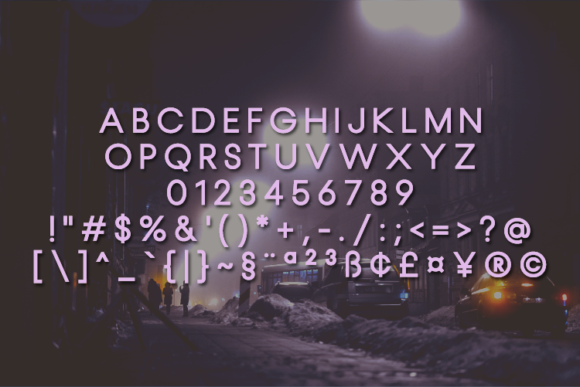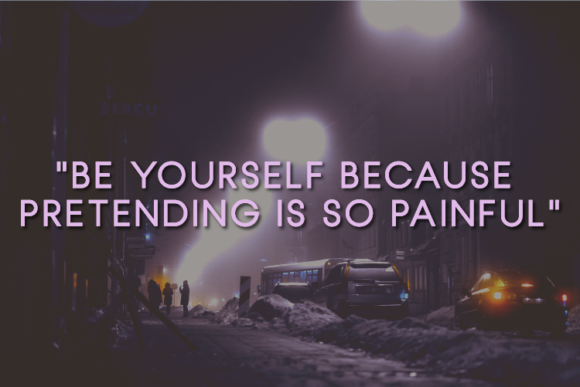
Introduction to Malverone Font
Have you ever stared at a blank page, wondering how to bring your creative project to life? It’s a familiar feeling for designers, but the right font can make all the difference. For me, it was the moment I discovered the Malverone Font – a clean and elegant sans serif font that instantly elevated my design.
As a designer, I’m always on the lookout for high-quality design resources that can take my work to the next level. That’s why I’m excited to share my experience with the Malverone Font, a versatile and stylish font that’s perfect for a wide range of creative projects. With its transparent background and crisp typography, the Malverone Font is a valuable addition to any designer’s toolkit, offering endless possibilities for creative expression.
Key Features of Malverone Font
- High-quality design resource with a transparent background, perfect for creative projects that require a touch of elegance.
- Malverone Font is offered in 4 different styles, including Regular, Italic, Bold, and Bold Italic, providing versatility for diverse design needs.
- The font features a clean and modern design, making it an ideal choice for logos, branding materials, and other visual identity elements.
- Malverone Font is a high-resolution font, ensuring that it remains crisp and clear even at larger sizes, making it a valuable design resource for creative projects.
Honest Review: Malverone Font
As a designer, I’m always on the lookout for high-quality fonts to enhance my creative projects. Recently, I stumbled upon the Malverone Font, and I’m excited to share my honest review with you.
- ✨ Elegant and sophisticated design aesthetic, perfect for luxury brands and high-end creative projects.
- ✨ High-quality rendering, even at small font sizes, making it ideal for fine typography.
- ⚠️ Limited language support, which may be a concern for designers working on multilingual projects.
- ⚠️ Some users may find the font’s elegance and sophistication too formal for certain creative projects.
Overall, I’m impressed with the Malverone Font’s design and versatility. While it may have some limitations, its high quality and elegant aesthetic make it a valuable addition to any designer’s library. Whether you’re working on a high-end creative project or need a reliable font for your design resources, the Malverone Font is definitely worth considering.
Tips for Getting the Most Out of Malverone Font
Use Malverone Font for your creative project to add a touch of elegance and sophistication. This high-quality font is perfect for designs that require a transparent background, making it ideal for logos, branding materials, and other design resources.
Common use cases for Malverone Font include:
1. Logo design
2. Branding materials
3. Social media graphics
4. Business cards
5. Brochures